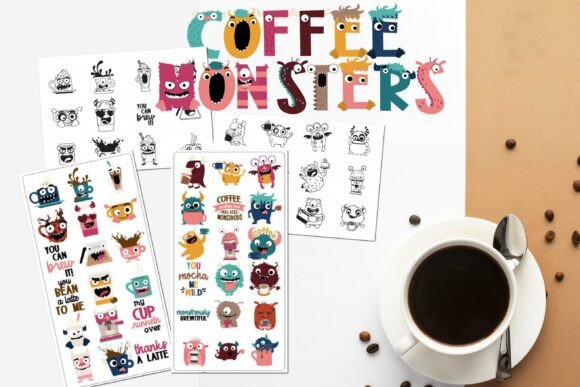
Coffee Monsters Font: A Fun and Colorful Font Bundle for Designers
Are you tired of using the same old fonts for your designs? Do you want to add a touch of personality and whimsy to your projects? Look no further than the Coffee Monsters Font bundle! This fun and colorful font bundle features brightly-colored coffee-loving monsters and mugs, perfect for designers who want to add a bit of humor and style to their work.
Coffee Monsters Font Bundle Details
The Coffee Monsters Font bundle is a comprehensive collection of fonts that includes:
- 1 full-color font, with an alt case of additional colors of each letter that you can access through your system or Silhouette’s glyph map
- 2 full-color dingbats
- 2 regular dingbats
This bundle is perfect for designers who want to create fun and colorful designs, from simple text logos to complex illustrations.
Full-color SVG fonts are the perfect way to add a touch of personality to your designs. With a full range of colors and styles to choose from, you can create anything from simple text logos to complex illustrations. Plus, SVG fonts are vector-based, so they can be scaled to any size without losing quality.
Uses of Coffee Monsters Font
The Coffee Monsters Font bundle is perfect for designers who want to add a touch of personality and whimsy to their designs. Some uses of this font bundle include:
- Creating fun and colorful text logos
- Designing complex illustrations and graphics
- Adding a touch of humor and style to your designs
- Creating custom mugs, t-shirts, and other merchandise
The Coffee Monsters Font bundle is a fun and colorful font bundle that is perfect for designers who want to add a touch of personality and whimsy to their designs. With a full range of colors and styles to choose from, you can create anything from simple text logos to complex illustrations. Whether you’re a seasoned designer or just starting out, this font bundle is sure to be a valuable addition to your design toolkit.